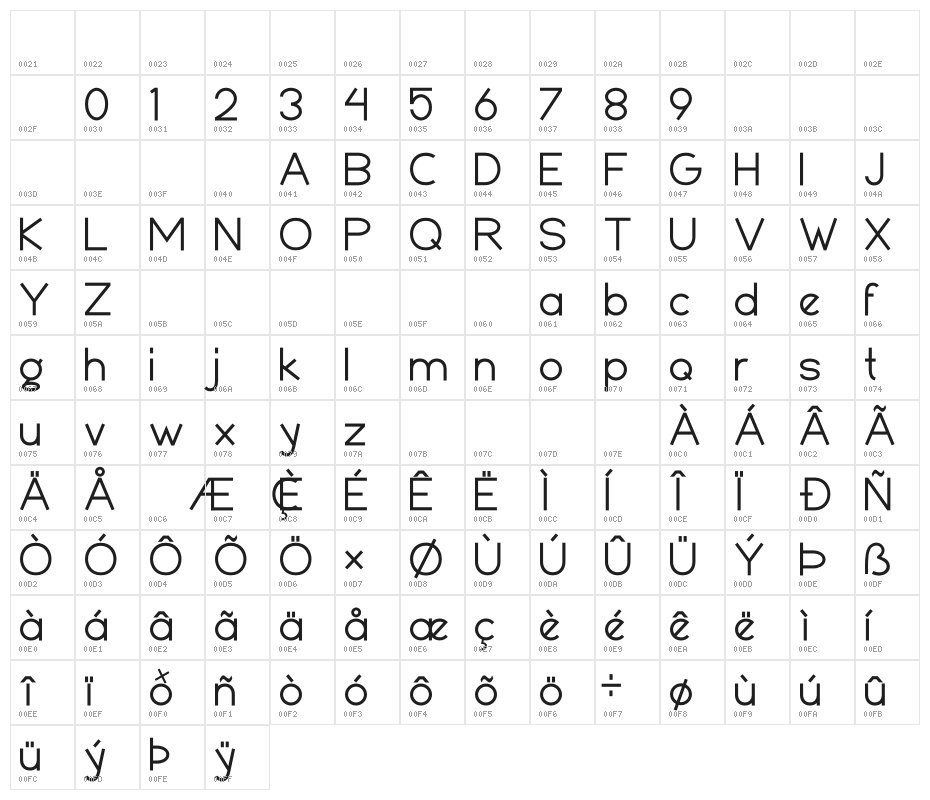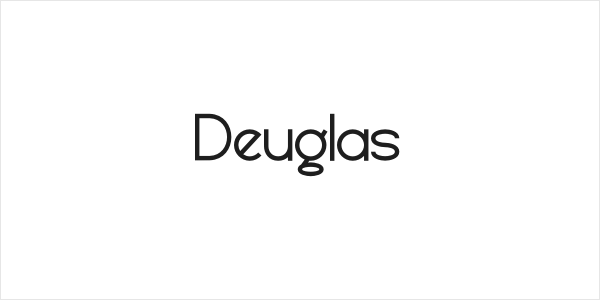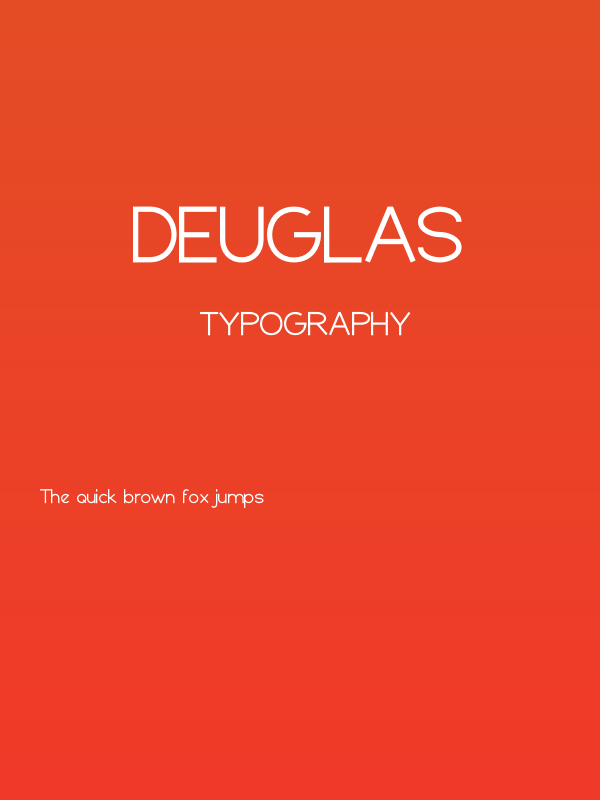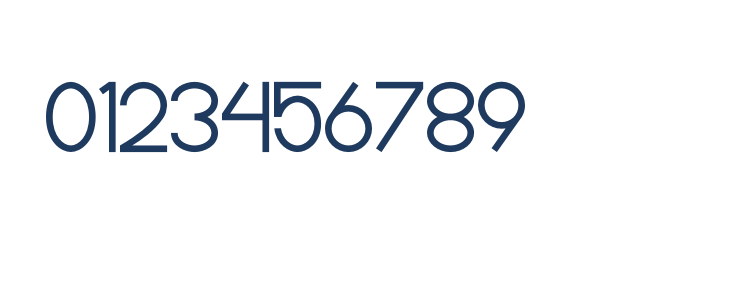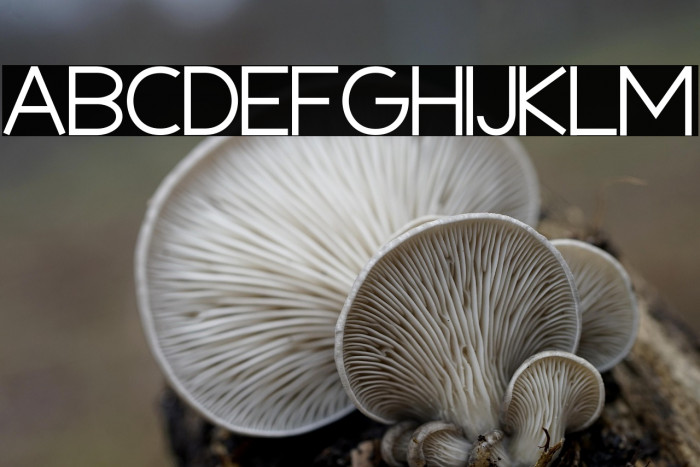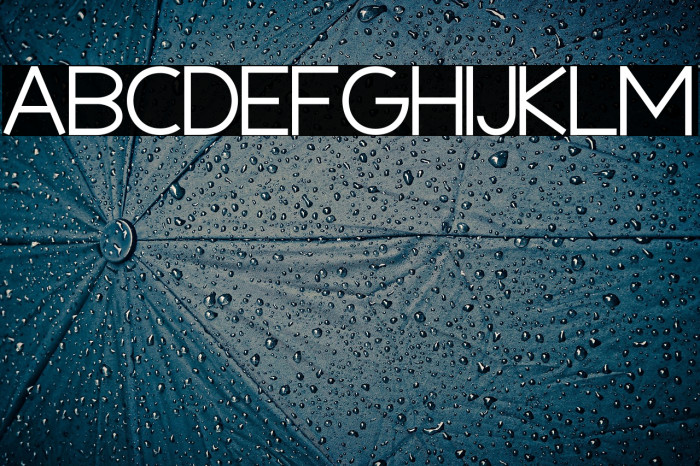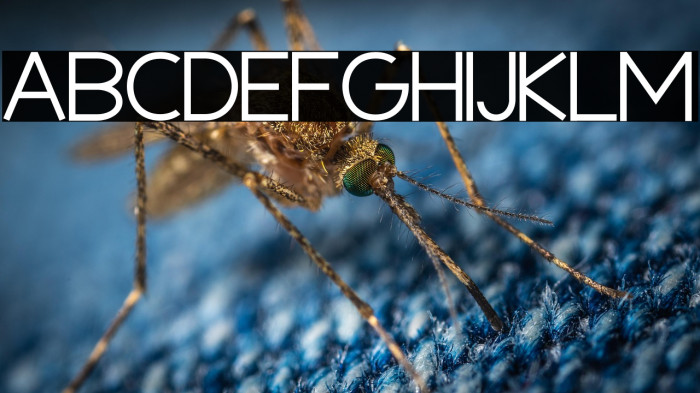
Deuglas Font
Deuglas Description
This font features a clean, geometric sans-serif style with uniform stroke widths that give it a modern and minimalist appearance. The characters are well-proportioned, with a consistent height and width that create a harmonious look. The uppercase letters are bold and assertive, while the lowercase letters maintain a friendly and approachable feel. The numerals are clear and easy to read, making them suitable for various applications. The overall design is sleek and versatile, ideal for contemporary design projects.
| Proposed Projects | Ideal for branding, advertising, web design, and editorial layouts where a clean, modern look is desired. |